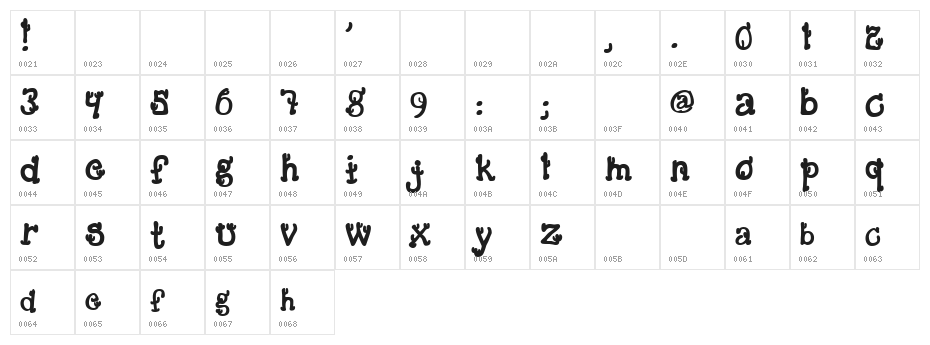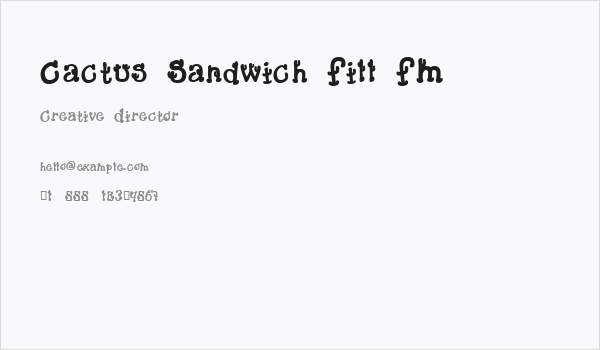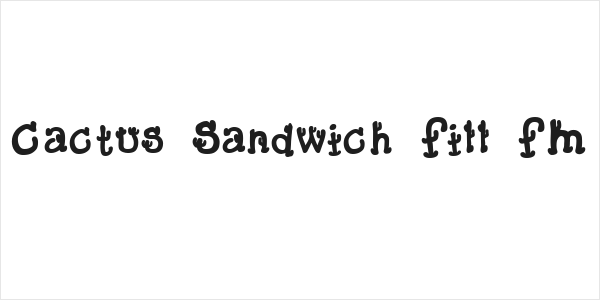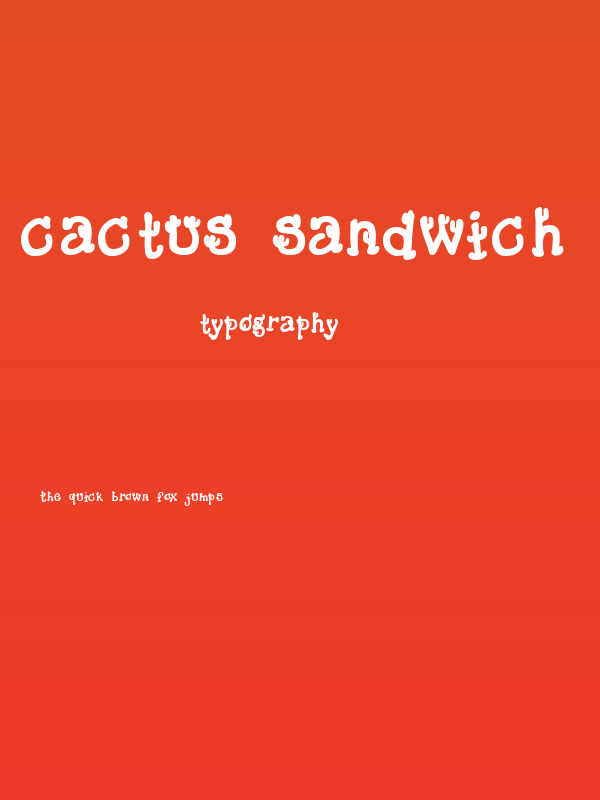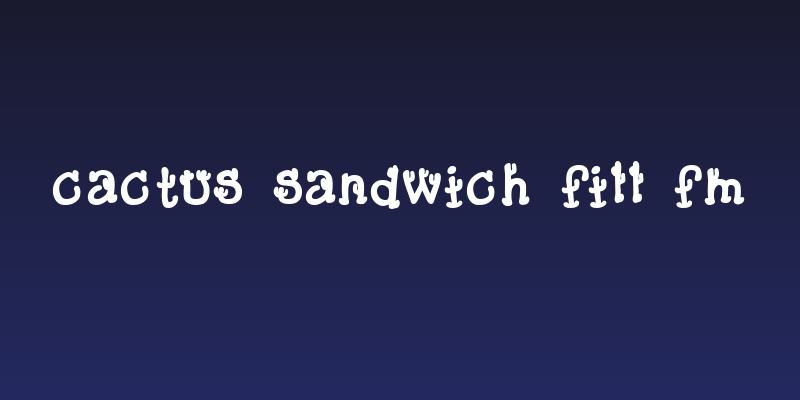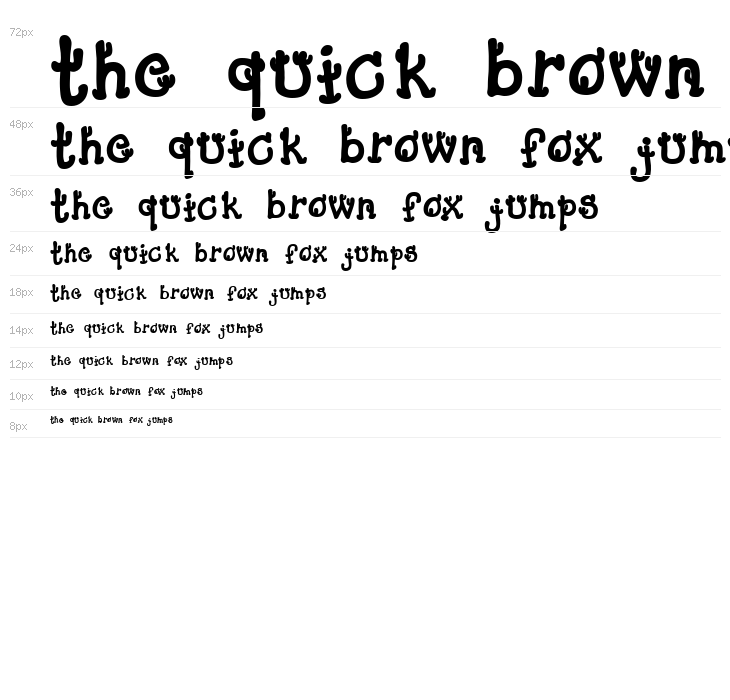
Cactus Sandwich Fill FM Font
Cactus Sandwich Fill FM Description
This playful and whimsical font features bold, rounded characters with unique decorative elements that resemble cactus spines. The letters have a consistent thickness, giving them a solid and sturdy appearance. The overall design is quirky and fun, making it ideal for creative projects that require a touch of humor and personality. The font includes both uppercase and lowercase letters, numbers, and a selection of special characters, all maintaining the distinctive style. Its bold and eye-catching nature makes it suitable for headlines and titles that need to stand out.
| Proposed Projects | Ideal for children's books, playful branding, event posters, and creative invitations. |